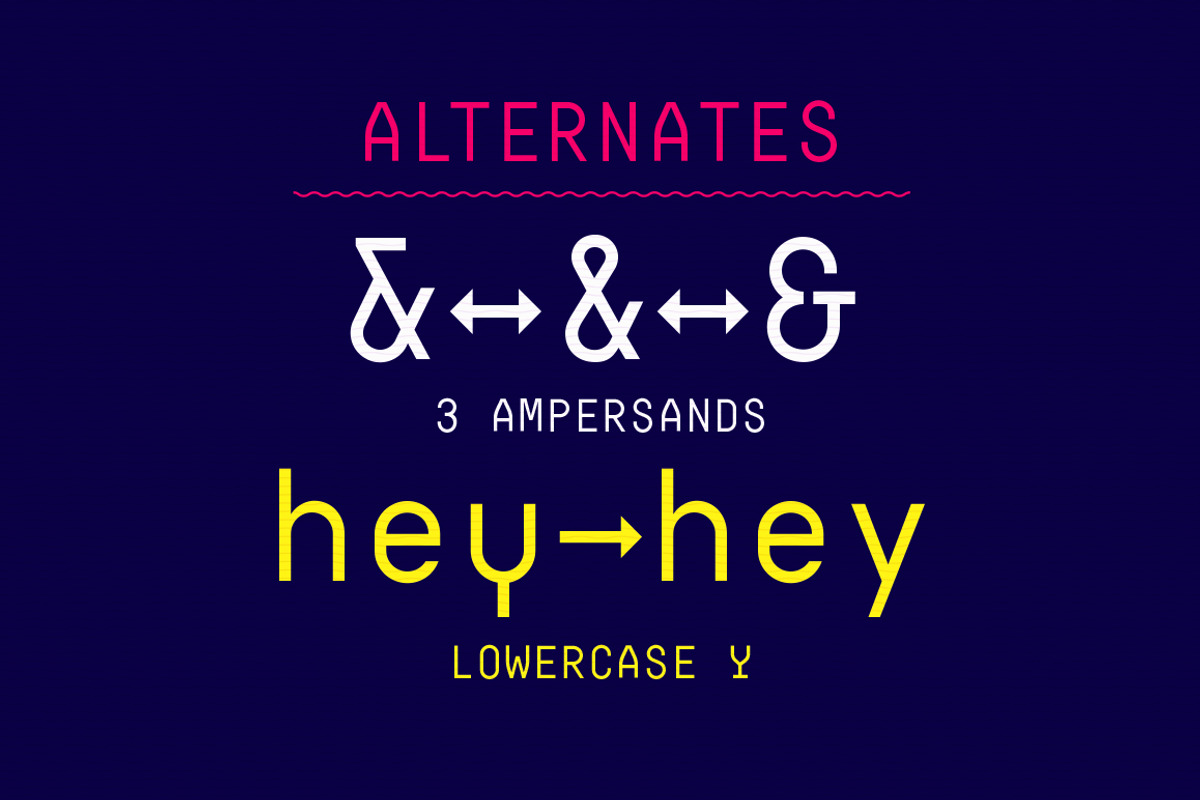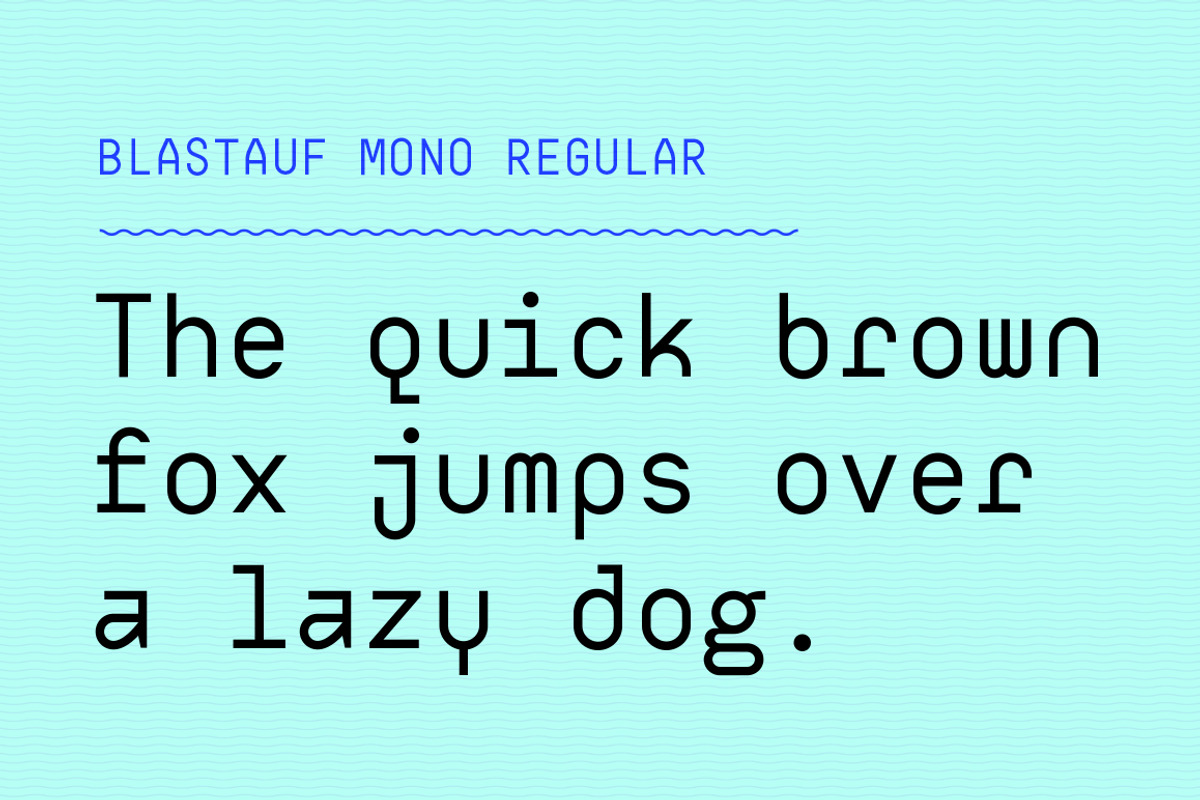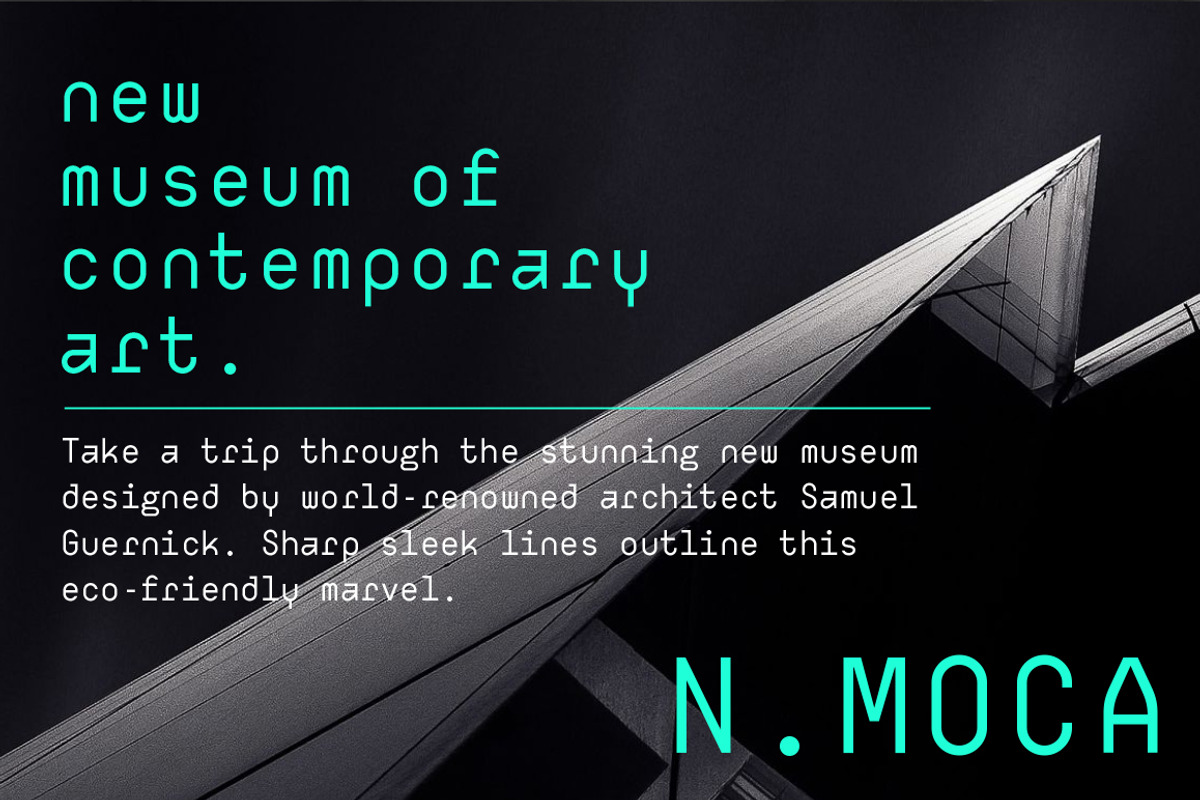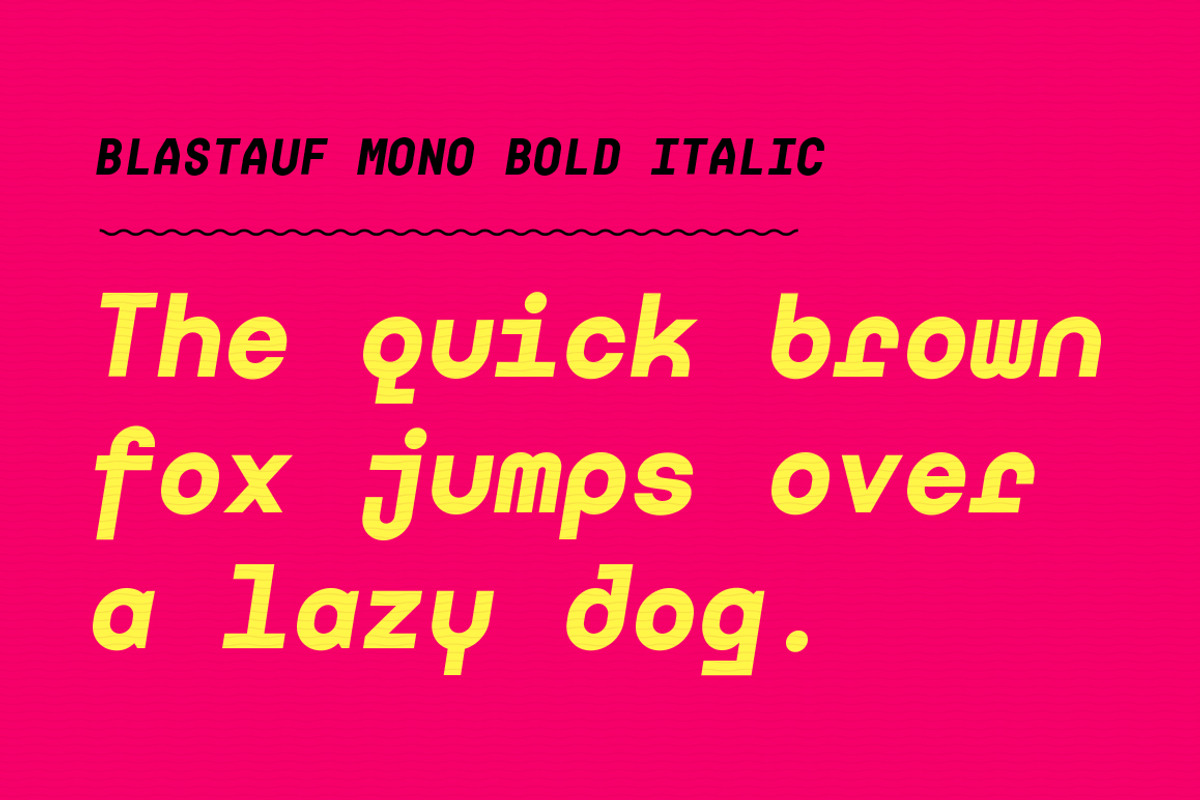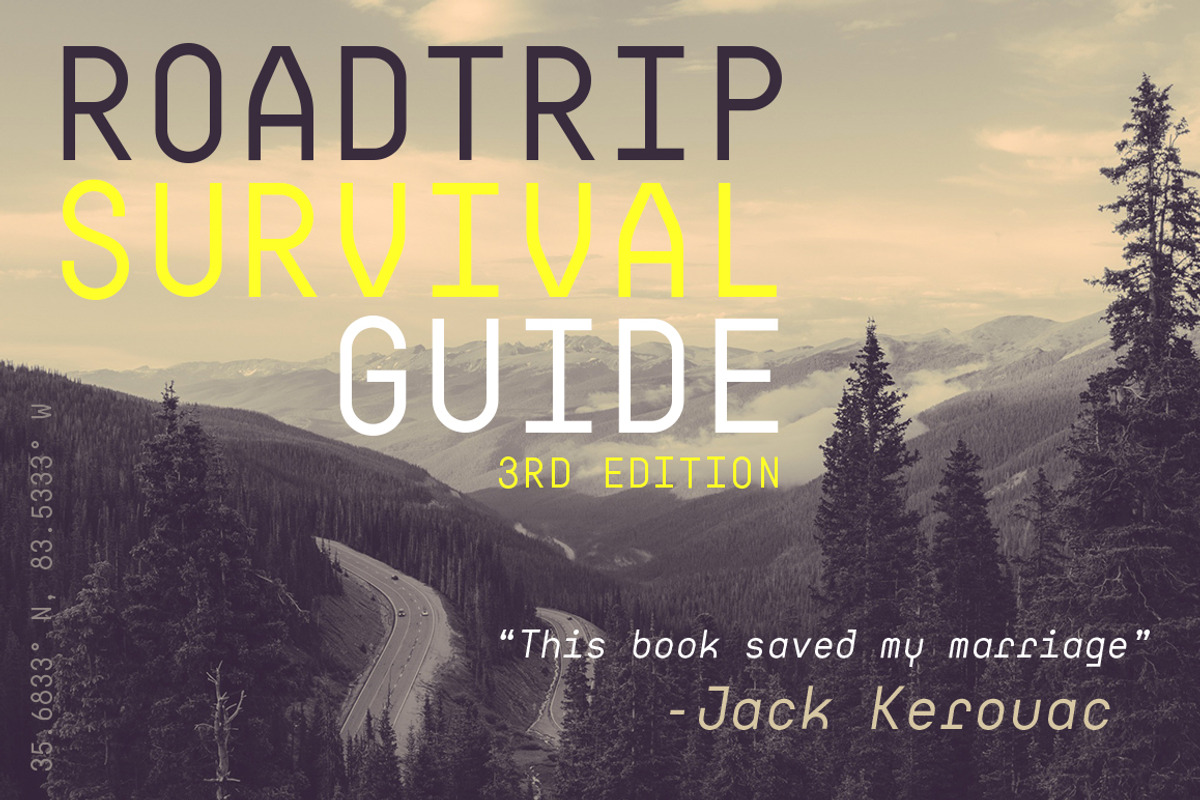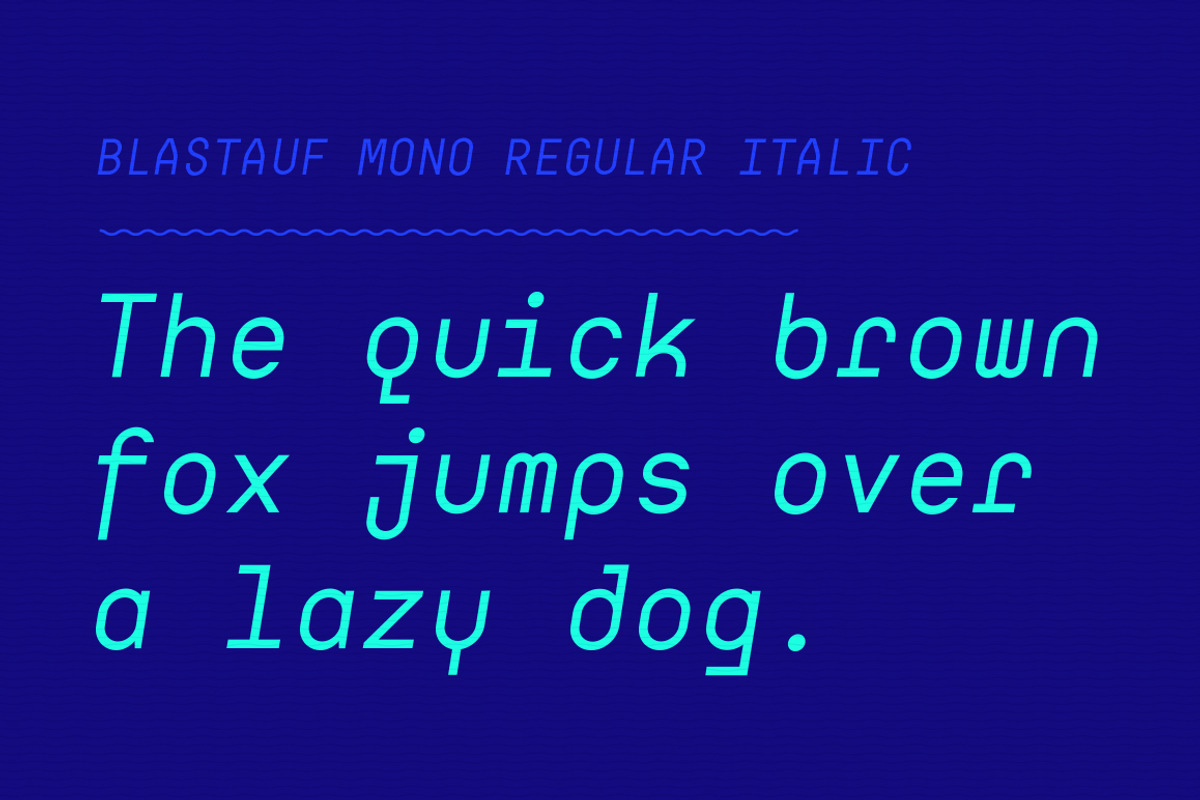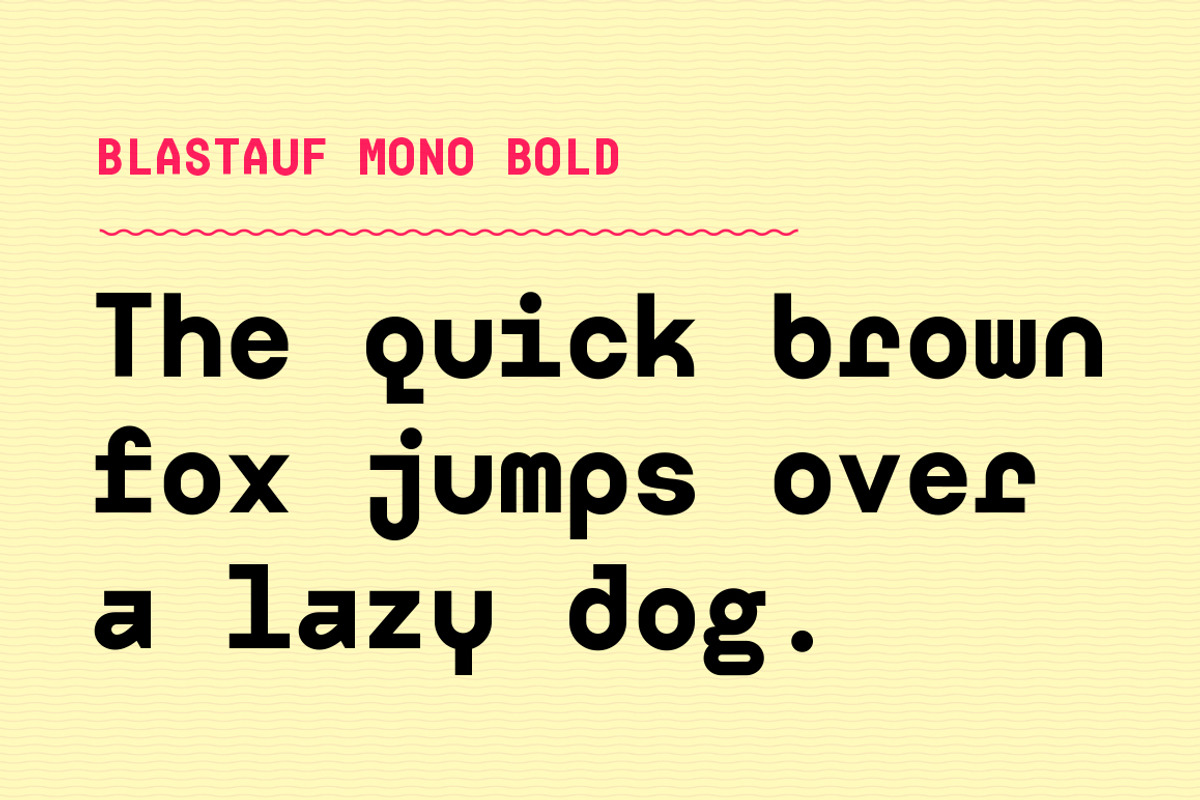
Sale! Digerati Mono Font Family
Sale! Digerati Mono Font Family by Haäfe & Haph is a font selected for branding, posters, packaging, typography.
- $35 Bonus inclusion: OpenType alternates for "y" and &.
Why Sale! Digerati Mono Font Family is worth a look
Sale! Digerati Mono Font Family by Haäfe & Haph fits naturally into Branding, posters, packaging, typography.